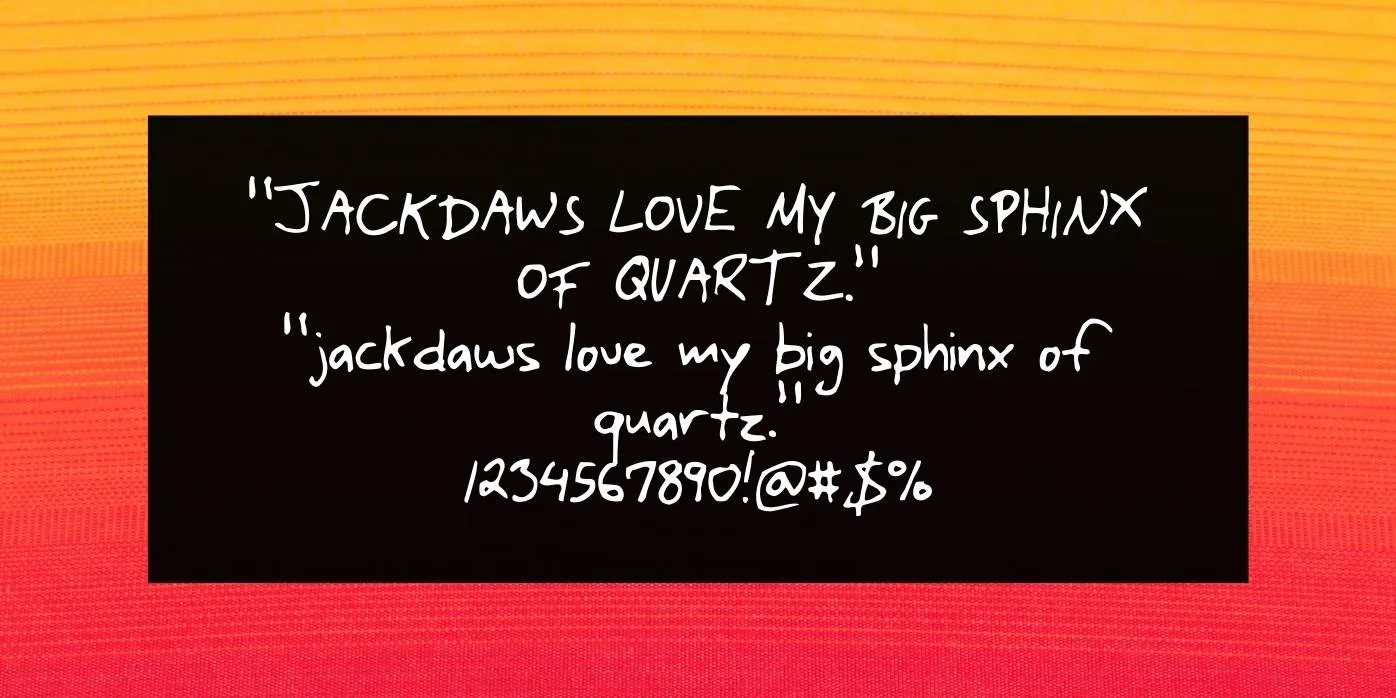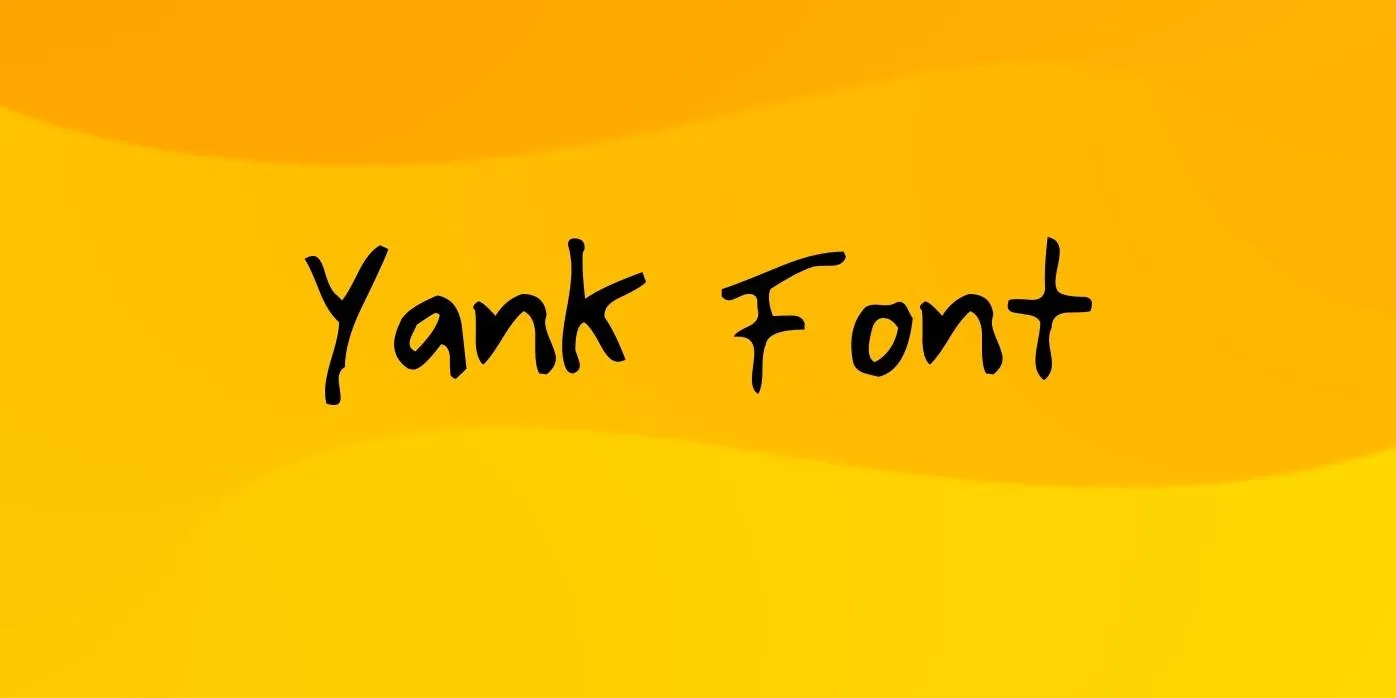
Yank Font
Here we discuss information about the Yank font. This is a handwritten typeface. It was designed by S. John Ross and is a trademark of Cumberland Font Works.
This font contains a total number of characters are 114.¬† This typeface also provides the facility of an online generator tool that can be used to make your text stylish and beautiful. Yank font is a type of messy writing. This doesn’t have many features in it like small letters, capital letters, numbers, symbols, and special characters which support you to make your project easily. This typeface helps to write your project in a very fast way.
This typeface supports TTF (Truetype Font) And OTF (Opentype Font). It also supports so many languages. This font is similar to a pictagram font which makes it look very simple and attractive. An American fashion designer took all rights reserved for this typeface because of its impressive look.
Usage Yank font is very simple to use and can be written very fastly. This font can be used for your projects to look different and unique. This can be used for making headlines for your project. This font can also be used for making graphics on the pictures for hoarding printing.